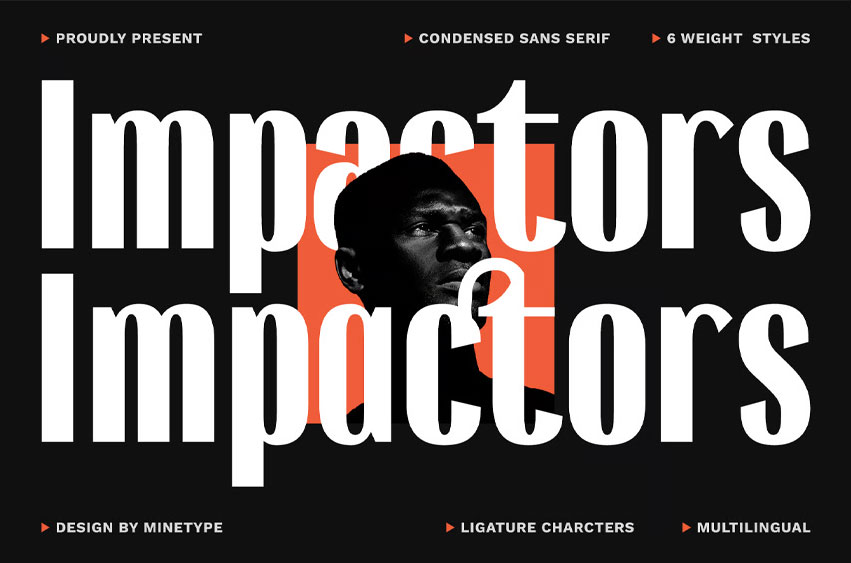
Impactors Font is a bold, futuristic display font crafted with strong geometric forms and modern details, delivering a powerful and striking impression. Designed as a complete font family, Impactors offers multiple weights and styles that give you flexibility for various design needs. From sharp headlines to stylish branding, this font family ensures consistency while keeping your design bold and futuristic.
Perfect for posters, logos, banners, packaging, digital content, and any creative project that requires impactful typography.